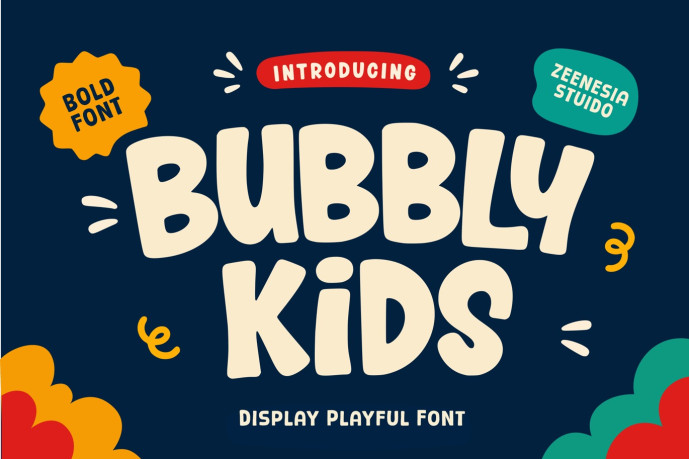
Bubbly Kids Font
Bubbly Kids Font is a playful display typeface that combines bold proportions with soft organic curves to create a charming and memorable visual style. Inspired by hand-cut lettering and cheerful retro aesthetics, this font delivers a warm, friendly personality while maintaining excellent readability. Its thick, rounded letterforms make Bubbly Kids perfect for bold headlines and eye-catching branding.
Whether you’re designing a snack package, café identity, kids’ products, event posters, or social media campaigns, Bubbly Kids adds an energetic and approachable character to your work. Designed to stand out in both print and digital applications, Bubbly Kids is ideal for creative projects that demand a fun, expressive, and distinctive typeface.